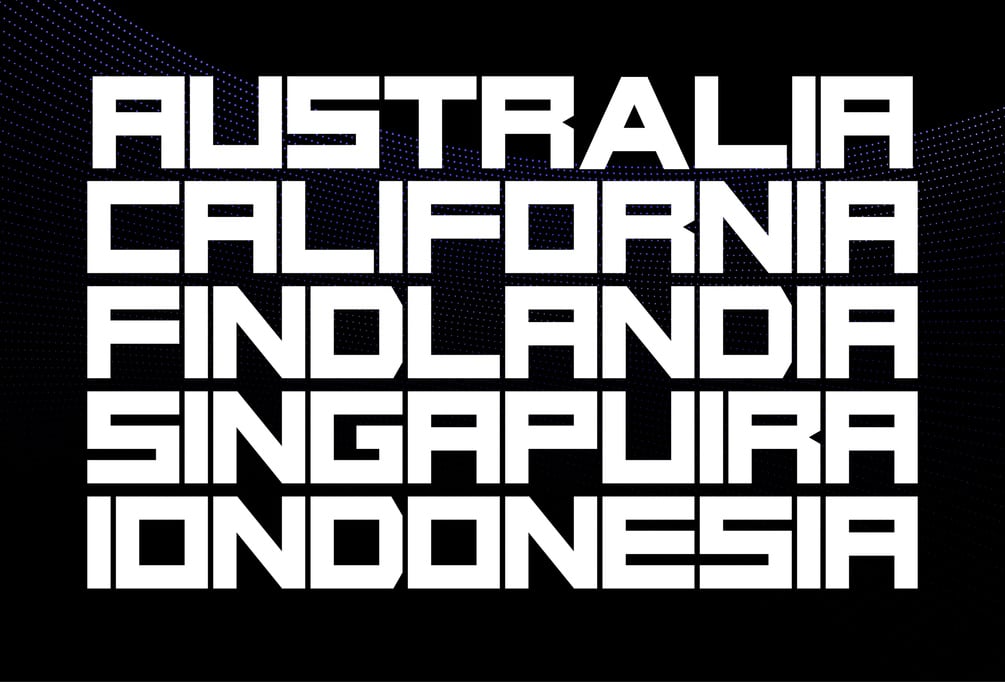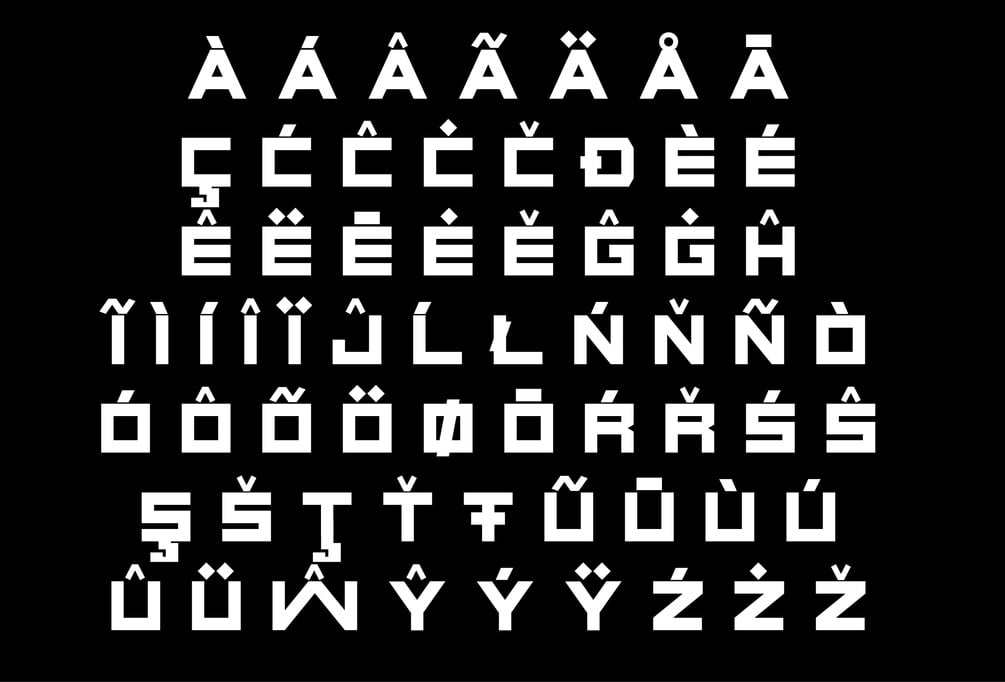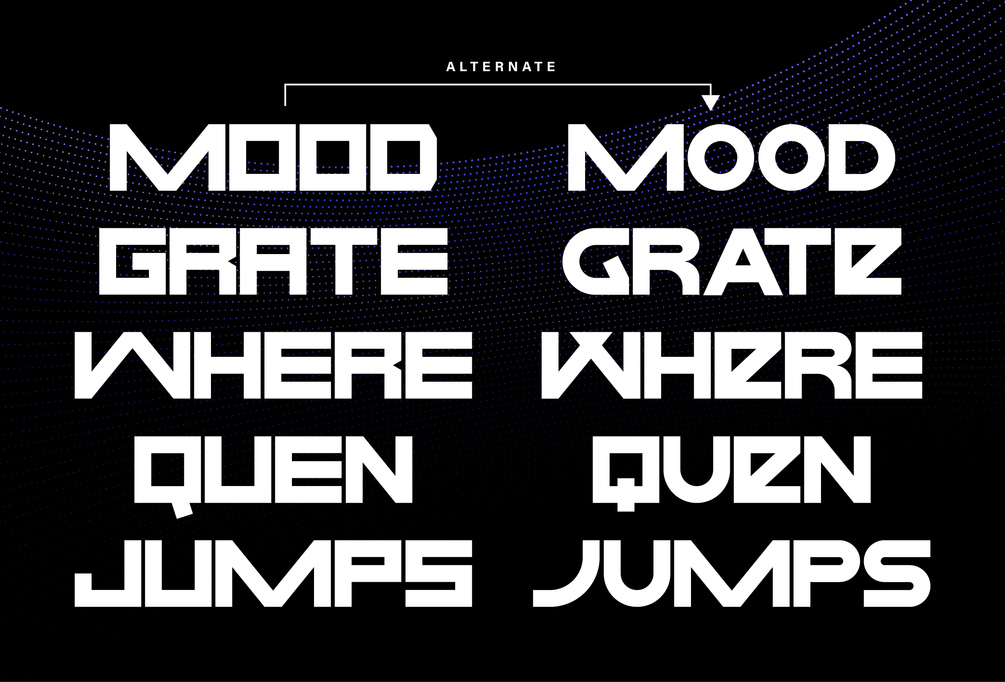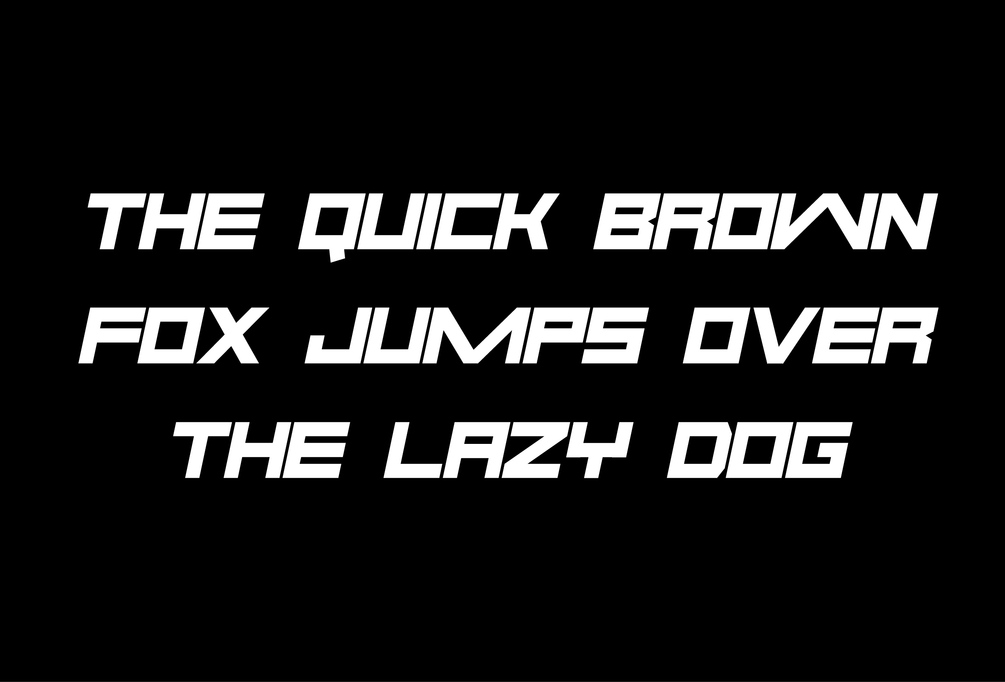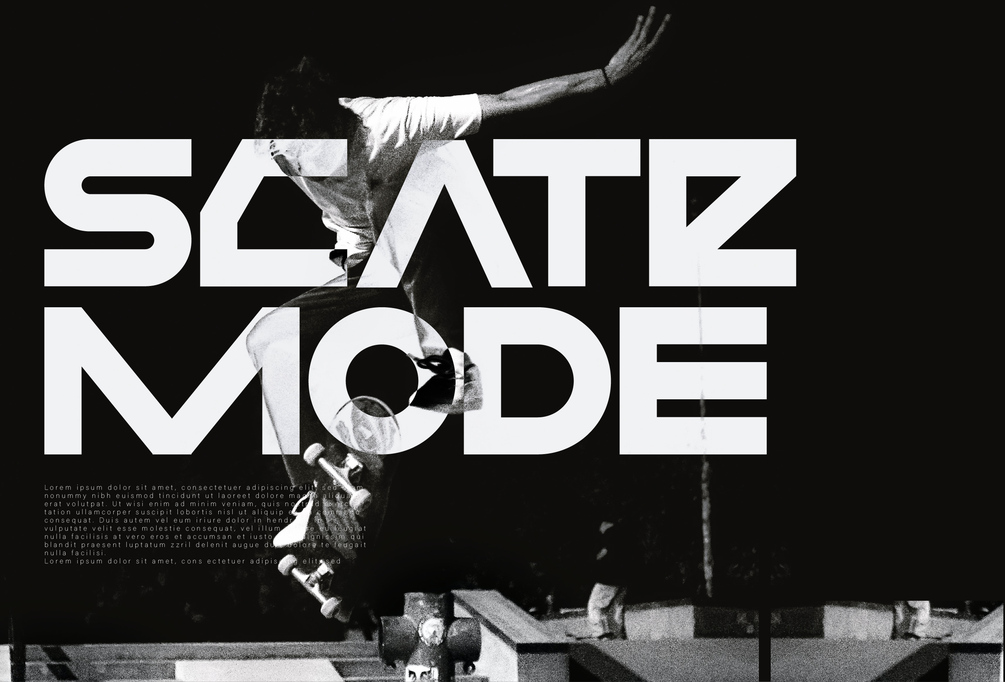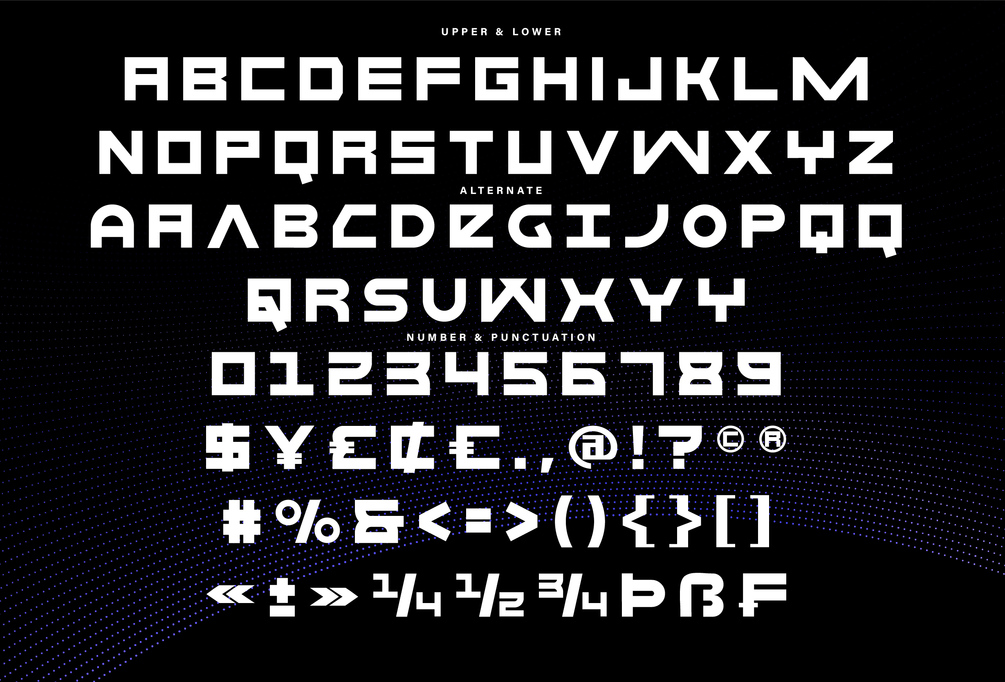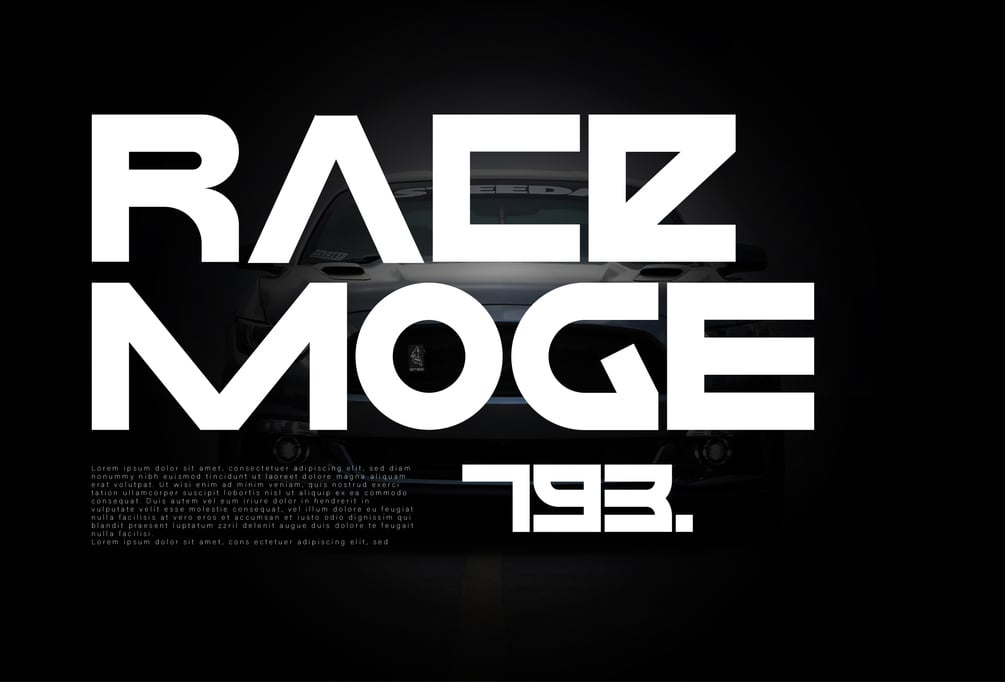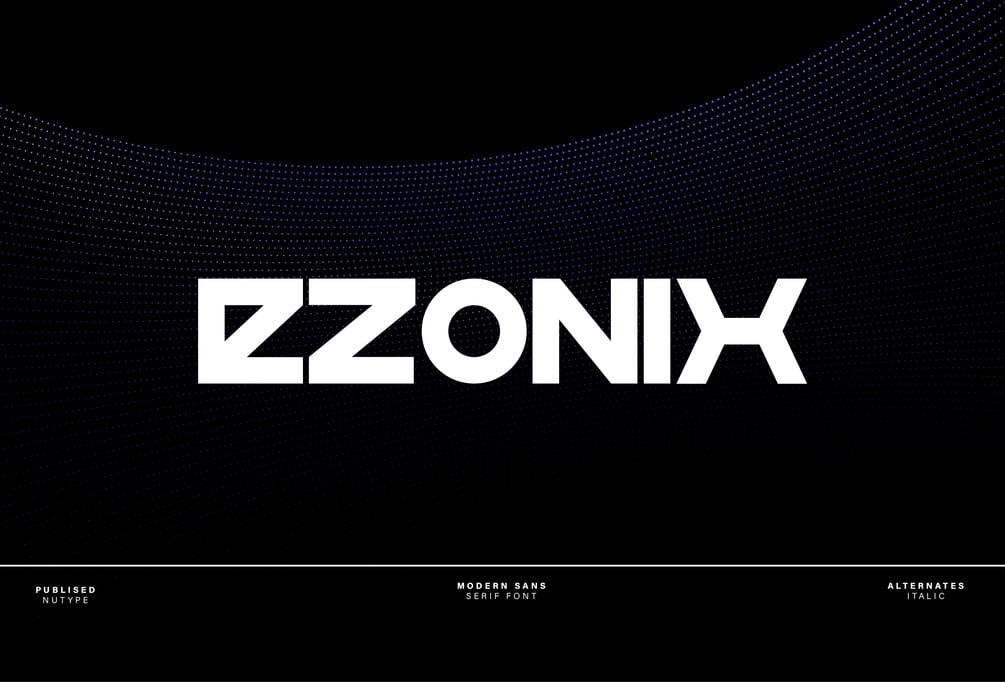
Ezonix - Modern Futuristic
Ezonix which has a strong looking design. The font looks like sans but thick so it seems more funny. suitable for use in various media, book covers, posters, typography, promotions and other digital media.
• Uppercase.
• Numbers and punctuation.